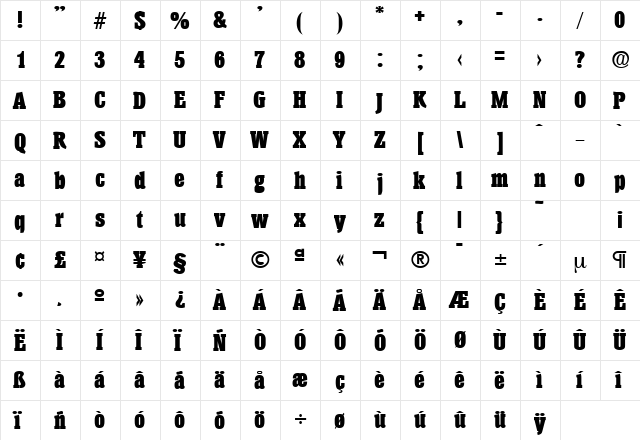
Helium-Serial-Heavy Regular
Design Context for Helium-Serial-Heavy Typeface
Helium-Serial-Heavy offers clean, dependable letterforms without strong stylistic allegiance, making it a practical choice for designers who need flexibility.
Pro Tip: Pair Helium-Serial-Heavy with a font of contrasting weight or personality to build a more expressive typographic hierarchy.